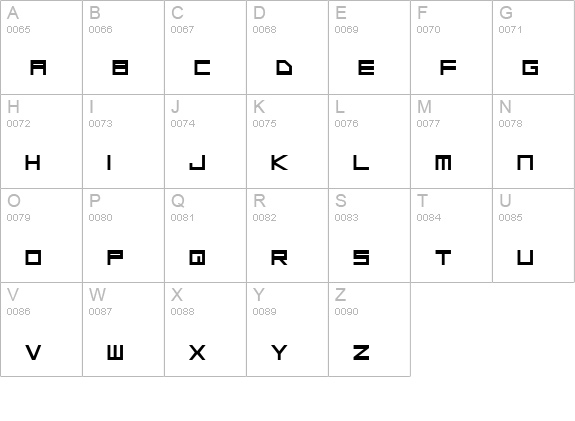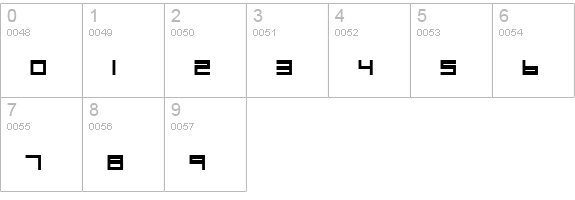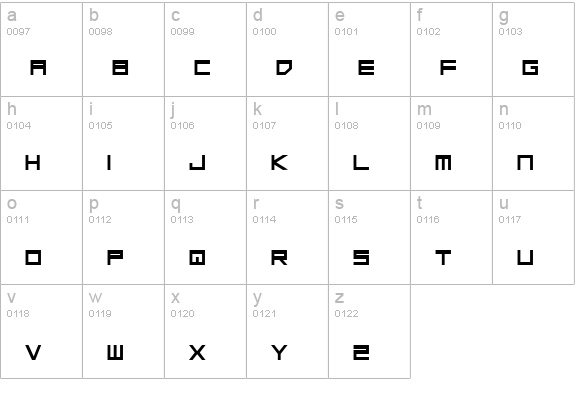
Low Gun Screen Bold is a strong, high-contrast variant in the Low typeface family \xE2\x80\x94 well suited to headlines, attention-grabbing titles, and strong calls-to-action.
Embrace the bold and striking aesthetic of Low Gun Screen Bold font, a dynamic typeface designed to make a powerful impact in your designs. With its strong, modern appearance and sharp edges, this font exudes confidence and sophistication. Ideal for headlines, logos, posters, and other display purposes, Low Gun Screen Bold commands attention and leaves a lasting impression. Its clean lines and distinctive style make it a versatile choice for a wide range of projects. Best of all, Low Gun Screen Bold is available for free download at FontsMarket.com. Take advantage of this opportunity to enhance your designs with this eye-catching font without breaking the bank. Don't miss out on the chance to add a touch of boldness and flair to your creative endeavors with Low Gun Screen Bold.